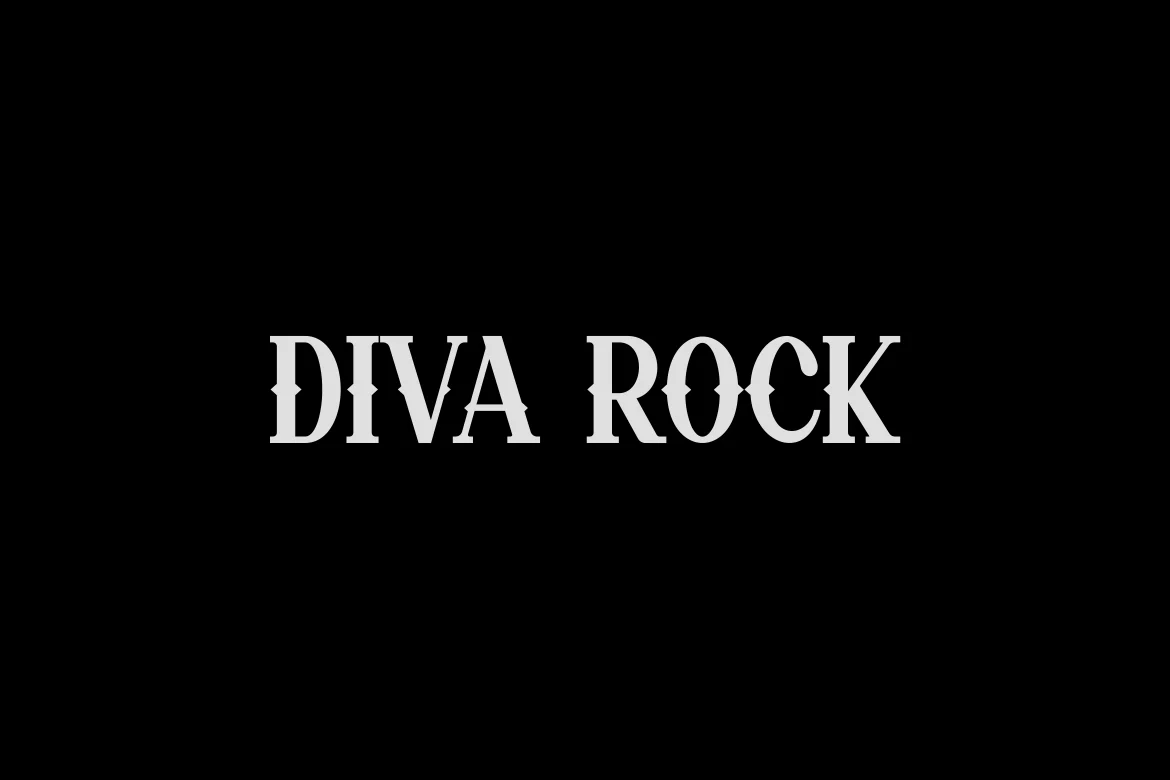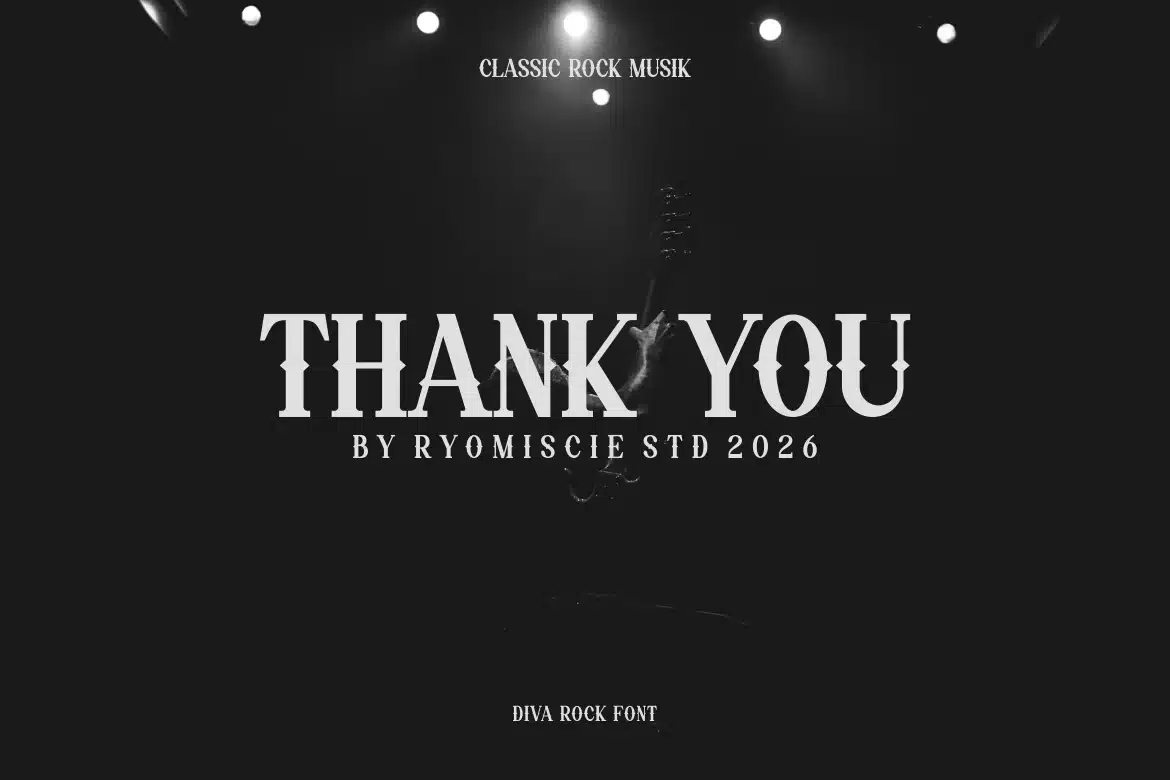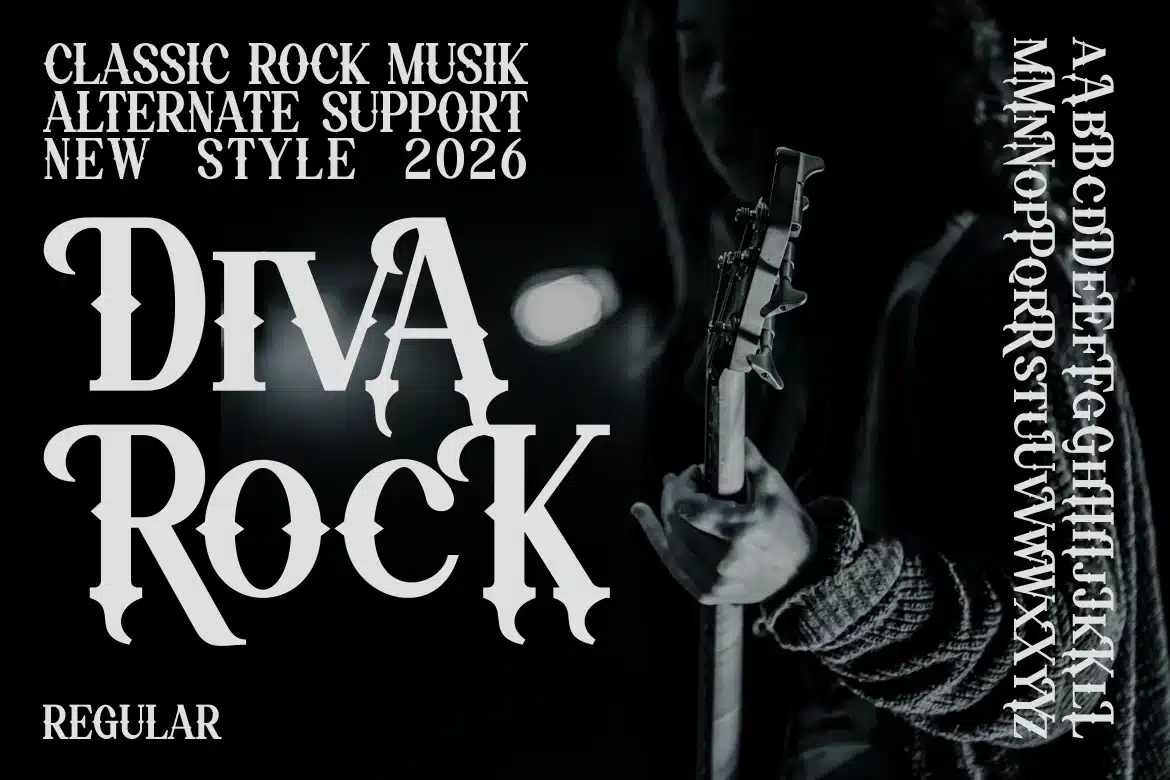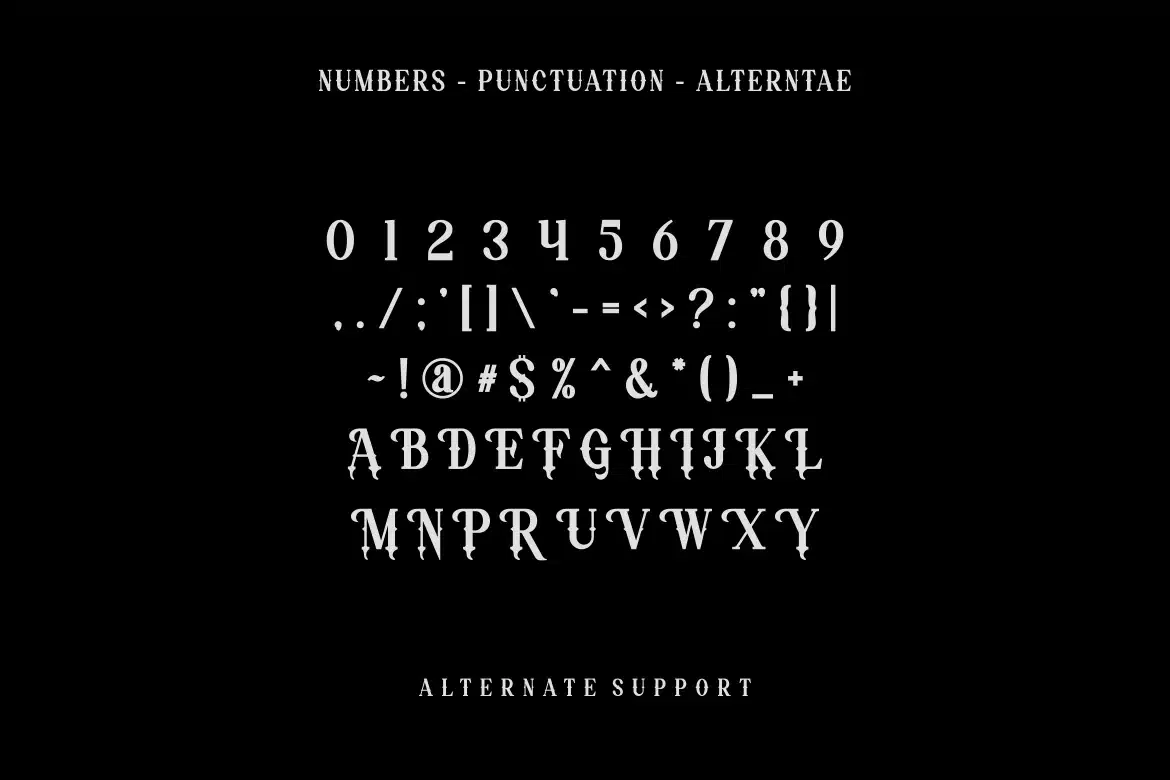
Diva Rock – Classis Rock Musik Font
Introducing our new product Diva Rock - Classis Rock Musik Font
Diva Rock - Classis Rock Musik Font is a bold and authentic display font. The font is suitable for any branding project like logo, esport, and many more. outstanding in a wide range of contexts.
- Uppercase Alternate
- Lowercase Alternate